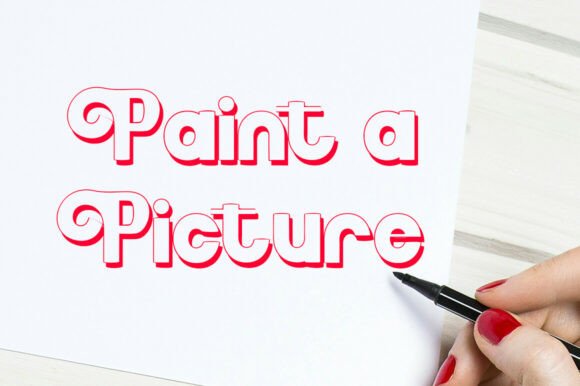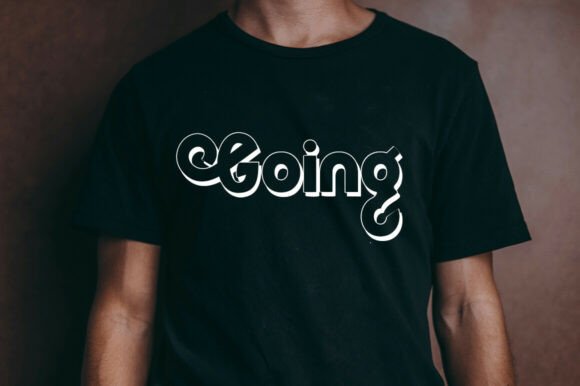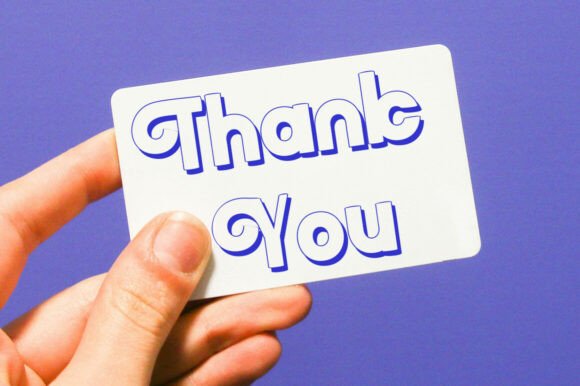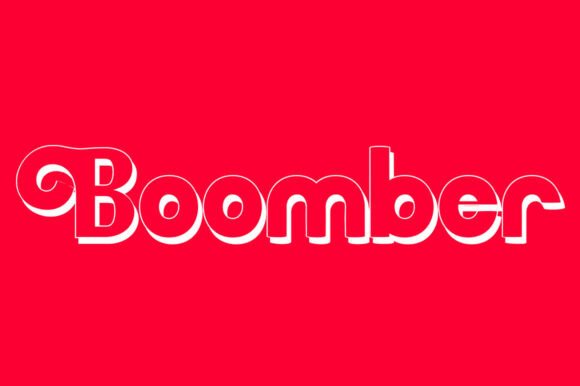
Introducing Boomber Font: The Ultimate Choice for Cheerful and Modern Designs
Are you tired of using the same old fonts for your designs? Look no further than Boomber, a playful and stylish display font that’s perfect for adding a touch of casual creativity to your work. With its smooth, rounded strokes and expressive letters, Boomber is sure to bring a cheerful and modern vibe to your designs.
The Characteristics of Boomber Font
Boomber font is all about creating a friendly and welcoming tone in your designs. Its smooth, rounded strokes give each letter a soft and approachable feel, making it perfect for designs that need to convey warmth and personality. The expressive letters in Boomber also create a sense of movement and energy, adding a touch of playfulness to your work.
One of the standout features of Boomber is its handcrafted and authentic look. Each letter flows naturally into the next, creating a sense of fluidity and continuity that’s hard to achieve with more traditional fonts. This makes Boomber perfect for designers who want to add a personal touch to their work.
Uses for Boomber Font
So, what can you use Boomber font for? The possibilities are endless! Here are a few ideas to get you started:
• Logos: Boomber is perfect for creating logos that need to convey a sense of friendliness and approachability. Whether you’re designing a logo for a new business or rebranding an existing one, Boomber is a great choice.
• Invitations: Add a touch of whimsy and personality to your invitations with Boomber. This font is perfect for wedding invitations, birthday party invites, and more.
• Greeting Cards: Boomber is also great for designing greeting cards that need to convey a sense of warmth and personality. Whether you’re creating a card for a special occasion or just to say hello, Boomber is a great choice.
• Posters: Boomber is perfect for creating eye-catching posters that need to grab people’s attention. Whether you’re advertising a event or promoting a product, Boomber is a great choice.
• Social Media Templates: Boomber is also great for designing social media templates that need to convey a sense of personality and style. Whether you’re creating a template for Instagram, Facebook, or Twitter, Boomber is a great choice.
Why Choose Boomber Font?
So, why should you choose Boomber font for your designs? Here are a few reasons:
• Unique and Playful: Boomber is a unique and playful font that’s sure to stand out from the crowd. Its smooth, rounded strokes and expressive letters create a sense of movement and energy that’s hard to achieve with more traditional fonts.
• Versatile: Boomber is a versatile font that can be used for a wide range of designs. Whether you’re creating a logo, invitation, greeting card, poster, or social media template, Boomber is a great choice.
• Easy to Read: Despite its playful and expressive nature, Boomber is still easy to read. This makes it perfect for designs that need to convey a message or tell a story.
• High-Quality: Boomber is a high-quality font that’s been carefully crafted to ensure that it looks great in any design. Whether you’re using it for print or digital purposes, Boomber is a great choice.
In conclusion, Boomber font is a great choice for designers who want to add a touch of cheerful and modern vibe to their designs. With its smooth, rounded strokes and expressive letters, Boomber is perfect for creating friendly and welcoming designs that convey warmth and personality. Whether you’re designing logos, invitations, greeting cards, posters, or social media templates, Boomber is a versatile font that’s sure to bring a touch of charm and modern flair to every project.